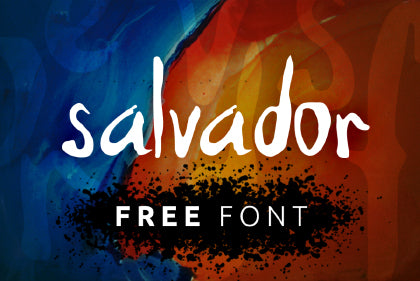
Free Salvador Handwriting Font
Download and enjoy this free salvador – handwriting font. Cool typeface to showcase your designs in a modern way. This is a downloadable free font file brought to you by Font Space. This is absolutely cool font so you can easily make world-class designs.